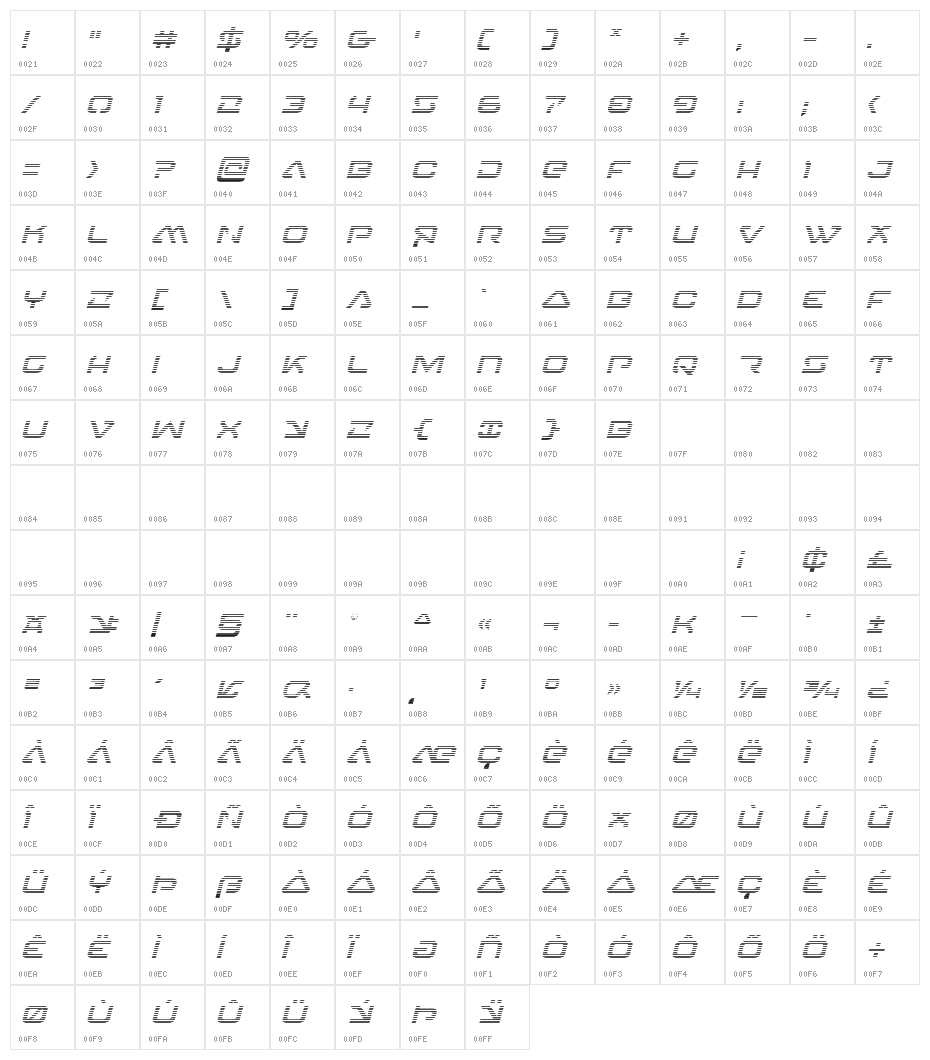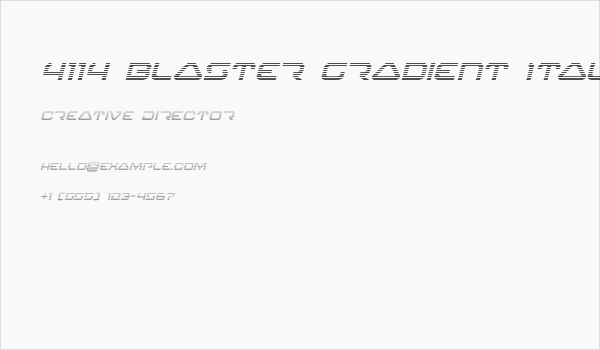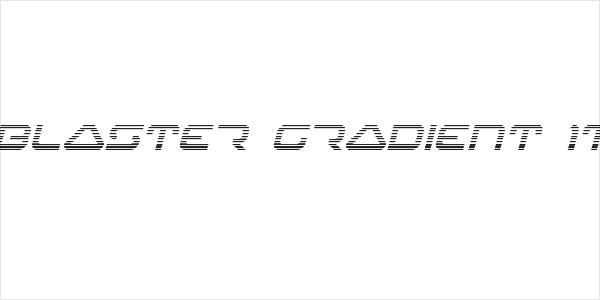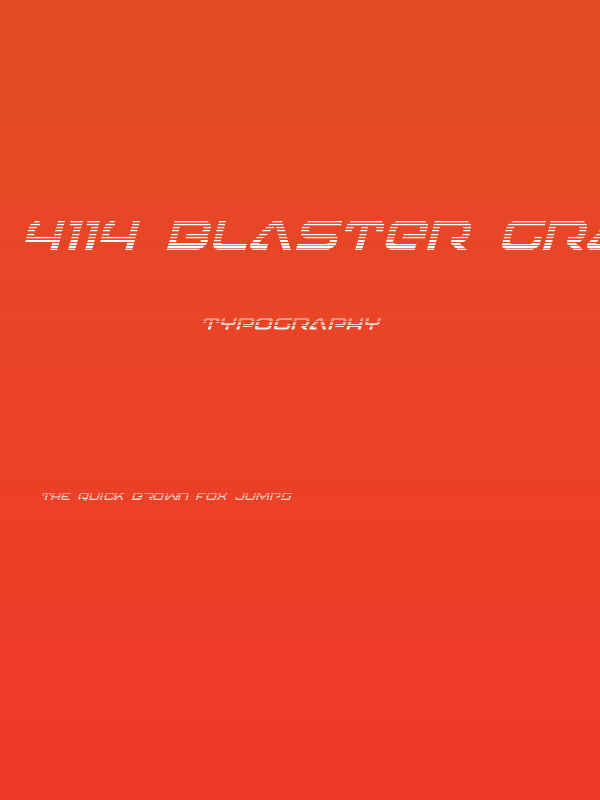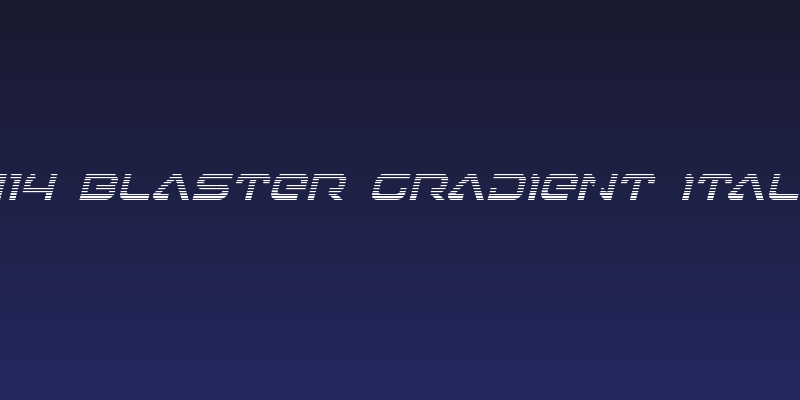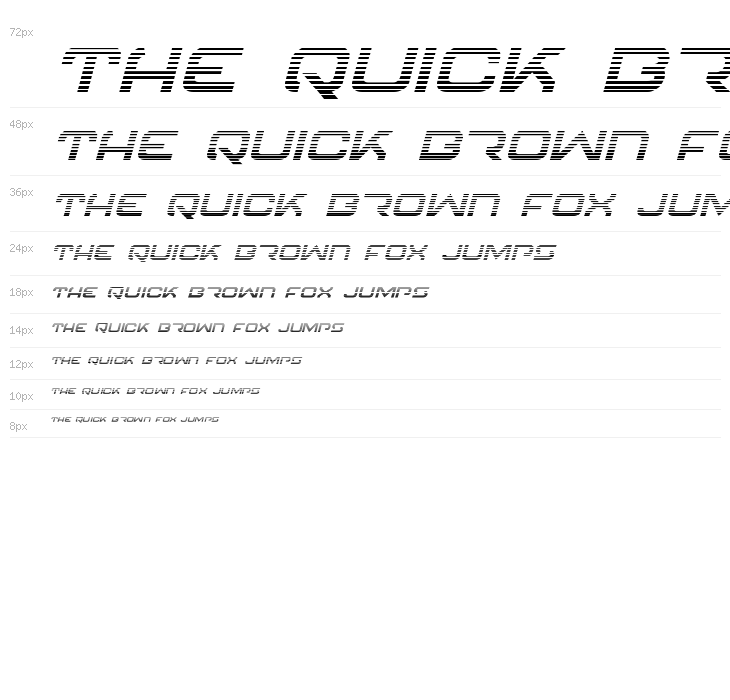
4114 Blaster Gradient Italic Font
4114 Blaster Gradient Italic Description
This font features a futuristic and dynamic design with a distinct italic slant, giving it a sense of motion and speed. The characters are composed of horizontal lines that create a gradient effect, adding depth and a modern touch. The uppercase and lowercase letters maintain a consistent style, with sharp angles and clean lines. Numbers and special characters are also designed to match the overall aesthetic, making this font suitable for a variety of creative projects. Its unique style is eye-catching and perfect for designs that require a bold and modern look.
| Proposed Projects | Ideal for sci-fi themed designs, video game graphics, tech branding, and modern posters. |